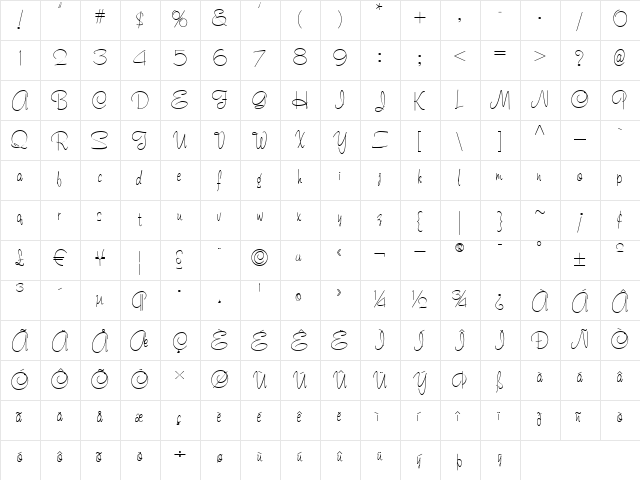
Runaround Sue NF Regular
Design Context for Runaround Sue NF Typeface
Runaround Sue NF uses gentle rounded endings to create a warm, inviting typographic personality — less corporate than geometric sans, more refined than playful display fonts.
Well-suited to UI design, mobile interfaces, and any brand that wants approachability without sacrificing clarity.
Font Pairing: Pairs well with a rounded or humanist sans for body copy, maintaining the friendly tone without relying on Runaround Sue NF to carry extended reading.
Pro Tip: Use Runaround Sue NF for UI elements, app interfaces, and anywhere a friendly, approachable tone needs to be maintained without sacrificing clarity.